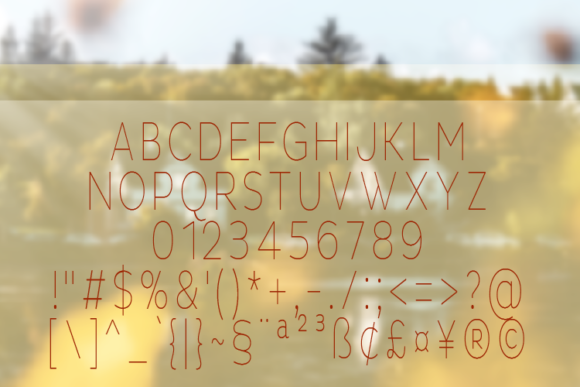
Introduction to Nueve Thin Font
As a designer, have you ever stumbled upon the perfect font for your creative project, only to realize it’s not available for download? The frustration is real, but what if you could access a high-quality, versatile font family that would elevate your designs to the next level? Enter the Nueve Thin Font, a sleek and elegant sans serif font designed for strong, classic branding.
With its clean lines and transparent background, Nueve Thin Font is the perfect design resource for any project, from logos and magazines to videos and weddings. Whether you’re a seasoned designer or just starting out, this font family is sure to become a valuable asset in your toolkit. And the best part? It’s available for free download, making it an accessible resource for designers of all levels.
Key Features of Nueve Thin Font
- High-quality design resource ideal for creative projects requiring a minimalist aesthetic.
- Thin and elegant design makes it perfect for use on transparent backgrounds, allowing for a clean and modern look.
- Resolution-independent design ensures crisp and clear rendering at any size, from small text to large headings.
- Unique characteristics include a subtle, refined feel and a highly legible design, making it suitable for a wide range of creative projects.
Honest Review: Nueve Thin Font
I recently had the chance to work with the Nueve Thin Font, and I must say it’s been a game-changer for my creative project. The high-quality design is perfect for modern and sleek designs, and it’s incredibly easy to use.
What I love about the Nueve Thin Font is its versatility. It’s ideal for a variety of design projects, from logos to digital art. I also appreciate the fact that it has a transparent background, making it a great resource for designers who need to create unique and eye-catching designs.
- ✨ Works well on digital screens
- ✨ Has a high level of readability
- ✨ Ideal for modern and sleek designs
However, I do have a few limitations to mention. The Nueve Thin Font is not as versatile when it comes to print design, and it may not be the best choice for large-scale text.
- ⚠️ May not be suitable for large-scale print designs
- ⚠️ Limited use in certain design software
Overall, I’m really impressed with the Nueve Thin Font. It’s a fantastic design resource that’s perfect for designers looking for a high-quality, free download. I highly recommend it for any creative project.
Tips for Getting the Most Out of Nueve Thin Font
Use Nueve Thin Font on a transparent background for a clean, minimalist look.
Combine Nueve Thin Font with other high-quality design resources for a cohesive, visually appealing design.
Common Use Cases for Nueve Thin Font
Nueve Thin Font is ideal for:
Logo design and branding
Brochure and flyer design
Website design and development
Infographic design and creation